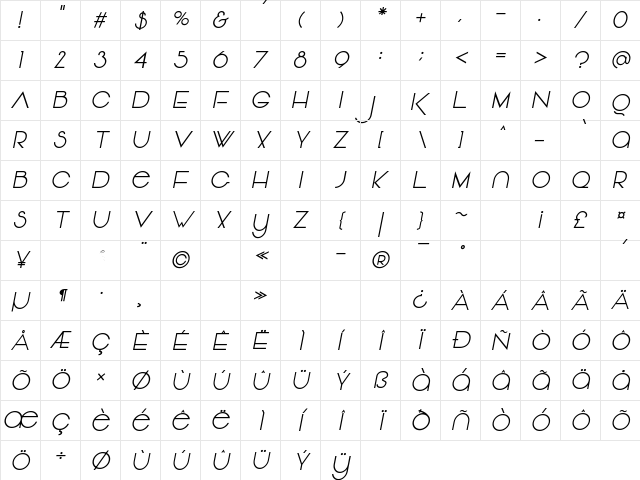
Vonique 64 Italic Free Font
Vonique 64 Italic
Design Context for Vonique 64
Vonique 64 is a composed and adaptable typeface that performs quietly and consistently across a wide range of design contexts. The slanted form adds forward momentum and visual energy.
Pro Tip: Use Vonique 64 for emphasis, pull quotes, and subheadings where its slanted energy can add rhythm to the layout.